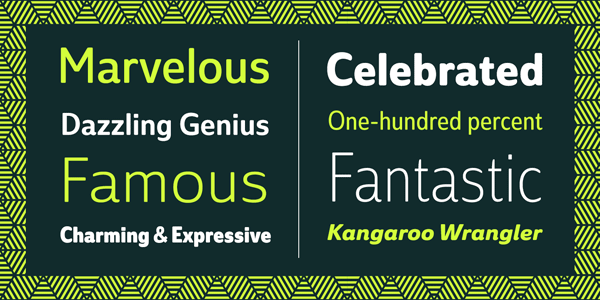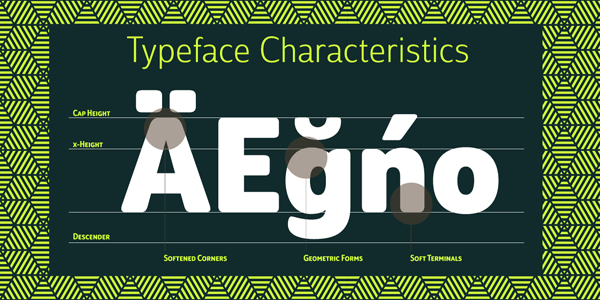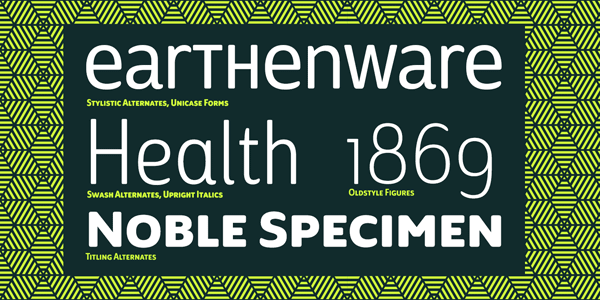
Solitas, a distinctive sans-serif font family designed by Jeremy Dooley of foundry insigne.
Solitas is a distinctive sans-serif font family with an elegant and unique look. Type designer Jeremy Dooley of foundry insigne has created this typeface in 2015. He has equipped this family with numerous weights ranging from Thin to Bold plus Italic versions. In addition, the Solitas font family comes with lots of typographic options including fractions, ligatures, alternate unicase, upright italics, and titling caps.
Solitas’ typeface is characterized by compact dimensions and geometric underpinnings, which results in a highly legible sans-serif font that can be used for both headlines and shorter text.
Solitas, a sans-serif font family by Jeremy Dooley of foundry insigne.
The family comes with diverse weights.
Some of the typeface characteristics.
Solitas is equipped with numerous OpenType features.
The bold weights work great for titles.